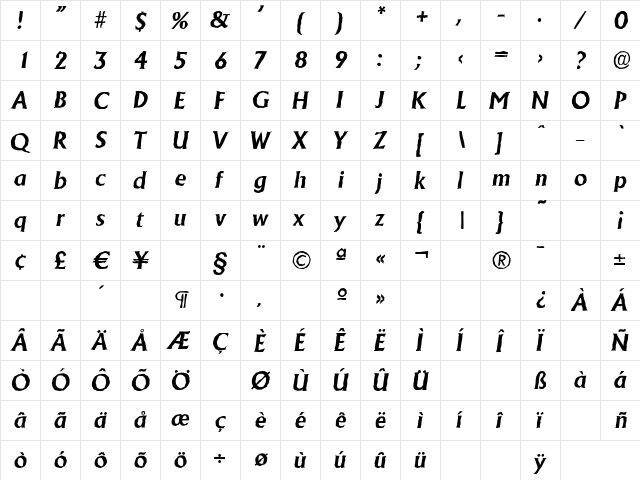
AdelonAntique BoldItalic
BoldItalic · SoftMaker Software GmbH SoftMaker Software GmbH ·
Foundry SoftMaker Software GmbH
DesignerSoftMaker Software GmbH
Design Context for AdelonAntique Typeface
AdelonAntique has the warm character of retro typography — evoking diners, record sleeves, and the golden age of print advertising. Its italic angle brings a sense of urgency and motion to the letterforms. Its bold stroke weight gives it real presence on the page.